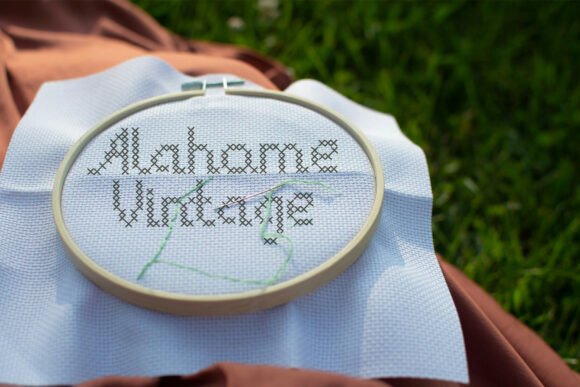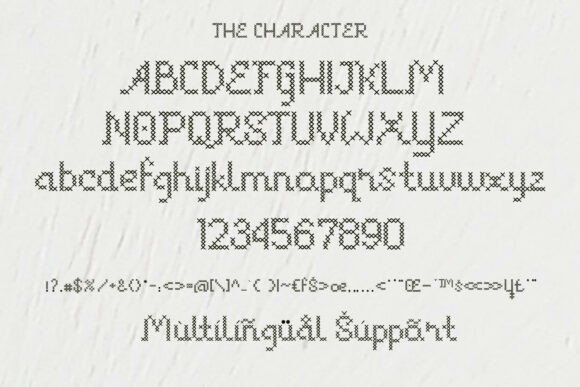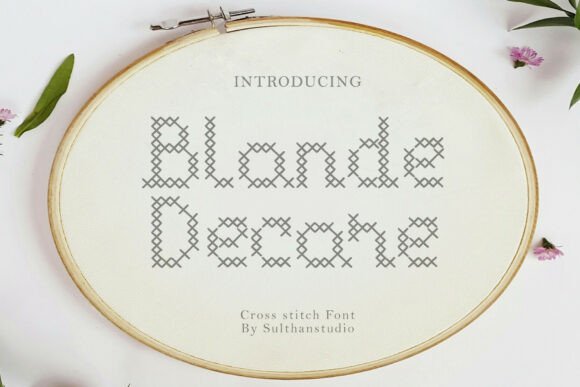
Introducing Blonde Decore Font: The Charming Cross Stitch Embroidery Font
Are you a designer or crafter looking for a unique and charming font to add a personal touch to your projects? Look no further than the Blonde Decore Font, a beautiful cross stitch style font that is sure to captivate your audience. This font is made in a cross stitch style, formed by a series of small x letters arranged neatly, creating a distinctive pixelated appearance of this cross stitch embroidery which is very charming and looks natural like stitching.
The Inspiration Behind Blonde Decore Font
The Blonde Decore Font is inspired by the traditional art of cross stitch embroidery, a popular needlework technique that involves creating patterns on fabric using x-shaped stitches. The font’s creator aimed to capture the essence of this traditional craft and translate it into a digital font that would be both functional and aesthetically pleasing. The result is a font that is both nostalgic and modern, perfect for designers and crafters who want to add a touch of handmade charm to their projects.
Key Features of Blonde Decore Font
- Cross Stitch Style: The font is made up of small x letters arranged neatly, creating a distinctive pixelated appearance that mimics the look of cross stitch embroidery.
- Charming and Natural Look: The font has a charming and natural look that is reminiscent of handmade stitching, making it perfect for projects that require a personal touch.
- Pixelated Appearance: The font’s pixelated appearance gives it a unique and eye-catching look that is sure to stand out.
- Versatile: The font is versatile and can be used for a variety of projects, from digital designs to print materials.
Uses for Blonde Decore Font
The Blonde Decore Font is perfect for designers and crafters who want to add a touch of handmade charm to their projects. Here are some ideas for using this font:
- Digital Designs: Use the font to create digital designs, such as social media graphics, blog headers, and email newsletters.
- Print Materials: Use the font to create print materials, such as brochures, flyers, and business cards.
- Crafting Projects: Use the font to create crafting projects, such as cross stitch patterns, embroidery designs, and paper crafts.
- Branding: Use the font to create a unique and memorable brand identity for your business or personal project.
Tips for Using Blonde Decore Font
Here are some tips for using the Blonde Decore Font:
- Use it sparingly: Use the font sparingly to add emphasis to your design. Its unique appearance can be overwhelming if overused.
- Pair it with other fonts: Pair the font with other fonts to create a visually interesting design.
- Experiment with colors: Experiment with different colors to find the perfect combination that complements your design.
The Blonde Decore Font is a charming and unique font that is perfect for designers and crafters who want to add a touch of handmade charm to their projects. Its cross stitch style and pixelated appearance make it a standout font that is sure to captivate your audience. With its versatility and nostalgic appeal, this font is sure to become a favorite in your design arsenal.